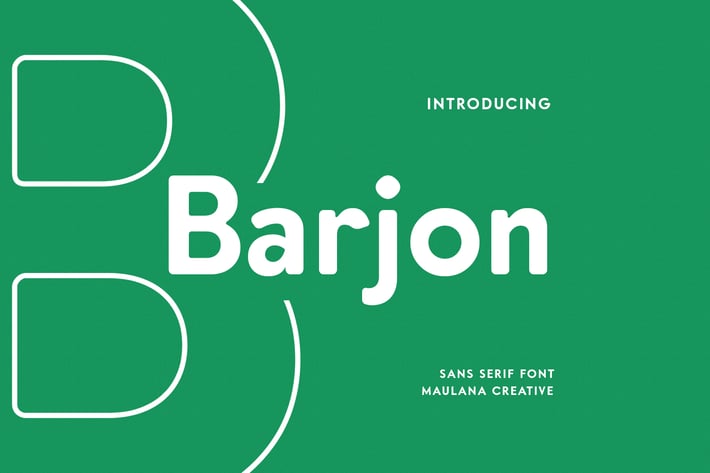
Barjon Display Sans Font
Barjon is a minimal classic contemporary sans serif font. Round Bold stroke, fun character with a bit of ligatures and alternates. To give you an extra creative work. Barjon font support multilingual more than 100+ language. This font is good for logo design, Social media, Movie Titles, Books Titles, a short text even a long text letter and good for your secondary text font with script or serif. Make a stunning work with Barjon font.